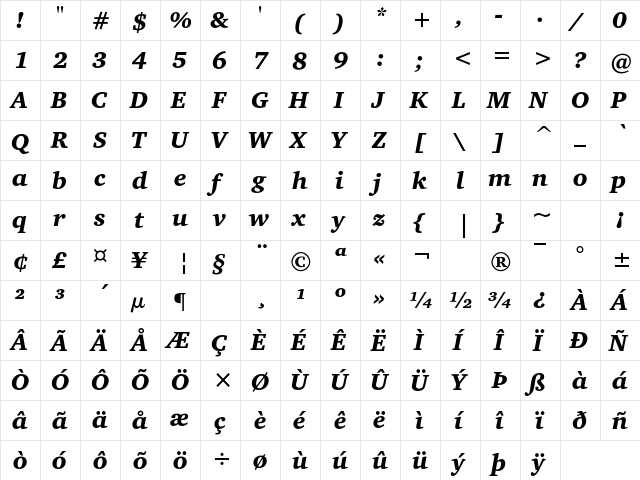
Charter BT Pro Black Italic
| Foundry | Bitstream Inc. |
| Designer | Matthew Carter |
Design Context for Charter BT Pro Typeface
Charter BT Pro offers clean, dependable letterforms without strong stylistic allegiance, making it a practical choice for designers who need flexibility. The slanted form adds forward momentum and visual energy.